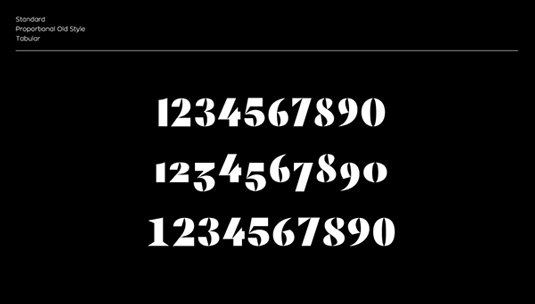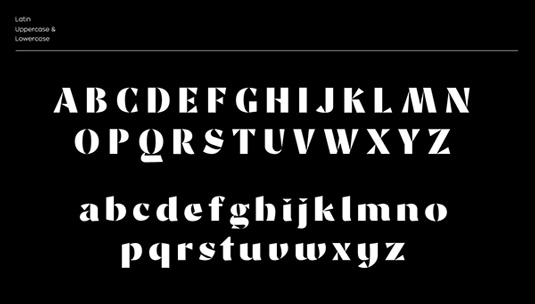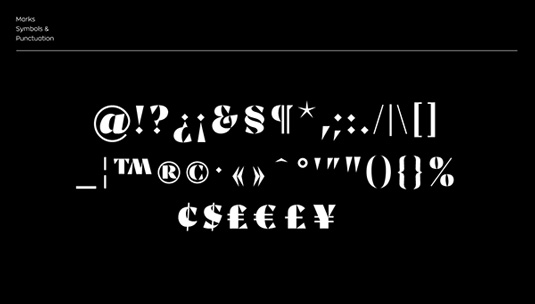
Font of the day: Takoshi
Takoshi from Black Fox Foundry
Today's font of choice is Takoshi from Canadian type foundry, Black Box. Available from Ten Dollar Fonts, the design is described as "a finely crafted modern interpretation of 15-17th century Cyrillic writings.
"Takoshi has a balanced contrast of thick and thin and sharp triangular shapes. The brush-like aesthetic gives Takoshi a heavy natural character that suits logos, headings and large graphics across a range of print or screen applications."